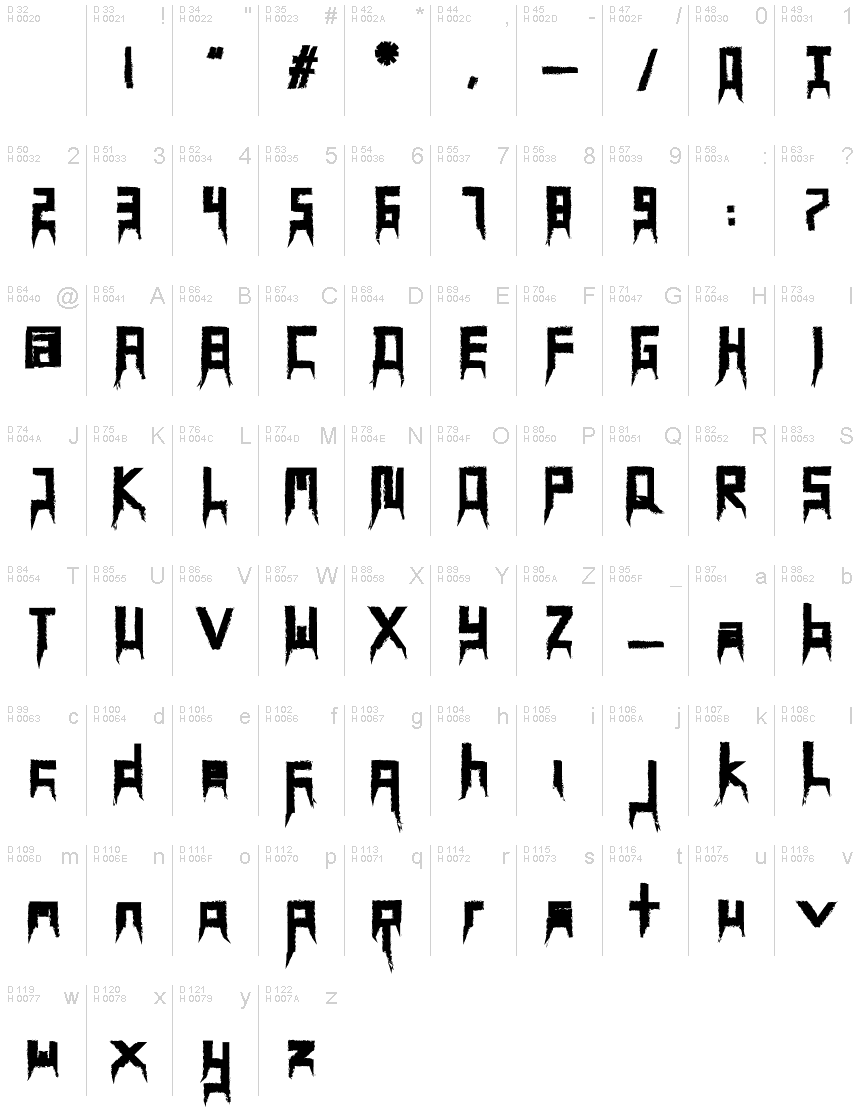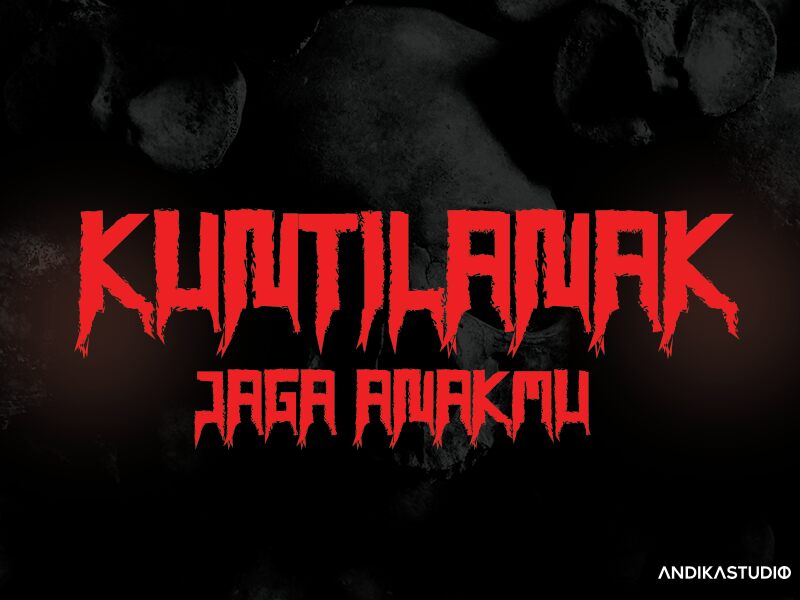
KUNTILANAK
KUNTILANAK, the latest display font by Lontong Lodeh, is a font that will send shivers down your spine. With its scary style and bold characters, KUNTILANAK is perfect for horror movie posters, haunted house flyers, and Halloween-themed designs. The semi-bold typeface of KUNTILANAK adds an element of emphasis to any project while its wide characters provide ample space for creativity. Use KUNTILANAK for book covers, spooky logos or even on social media posts to create a bone-chilling effect. This font is sure to haunt the minds of your audience and make your projects stand out in the crowd.